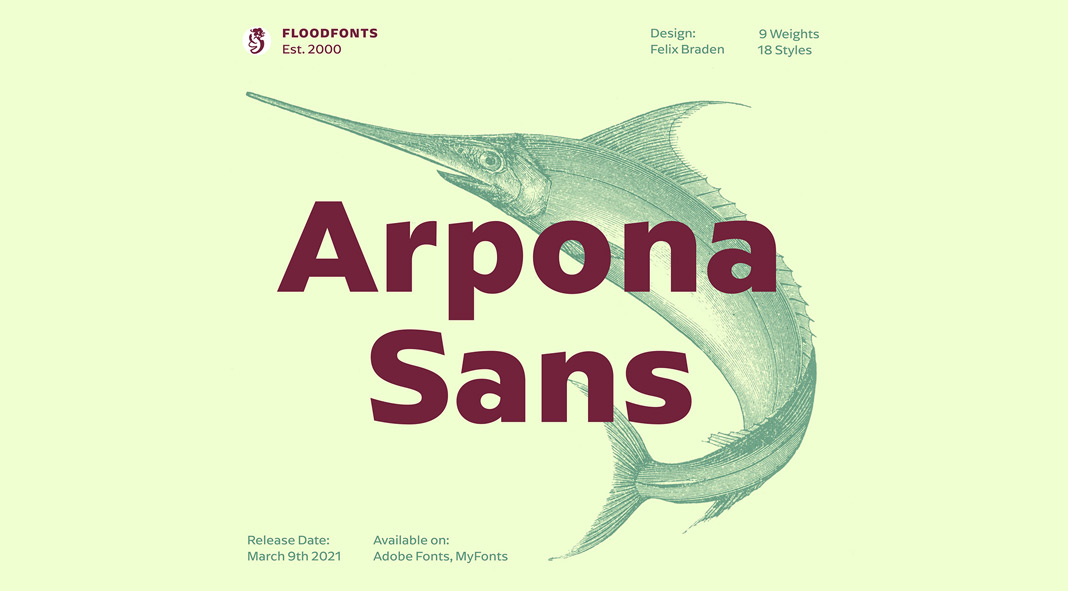
Arpona Sans, a contemporary sans serif font family inspired by the creative work of Edward Johnston and Eric Gill for London Underground.
German graphic and typeface designer Felix Braden just released his latest font family, Arpona Sans—the sans-serif companion of the popular Arpona typeface. Arpona Sans draws inspiration from the creative work of Edward Johnston and Eric Gill for London Underground. The font family masterfully combines the modern esthetics and proportions of geometric sans fonts with the friendly feel of humanist typefaces.
Whether printed or on screen, Arpona Sans is well suited for a wide range of work including editorial design, branding, app design and web design, etc. The font family consists of nine weights ranging from Thin to Black plus matching italics for each weight. Just click on the following link to learn more about all features. Please note, you currently purchase the complete Arpona Sans font family as an introductory offer with a discount of 60% (only for a limited time).